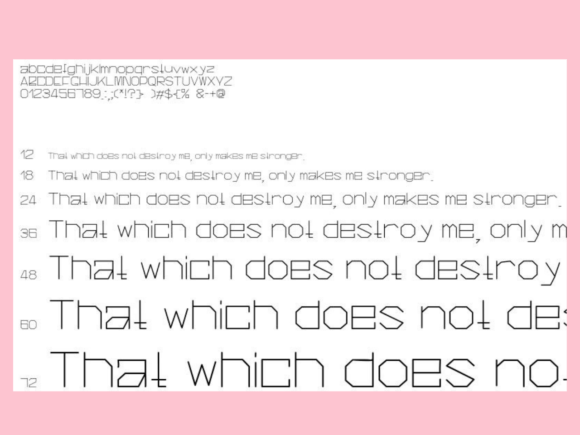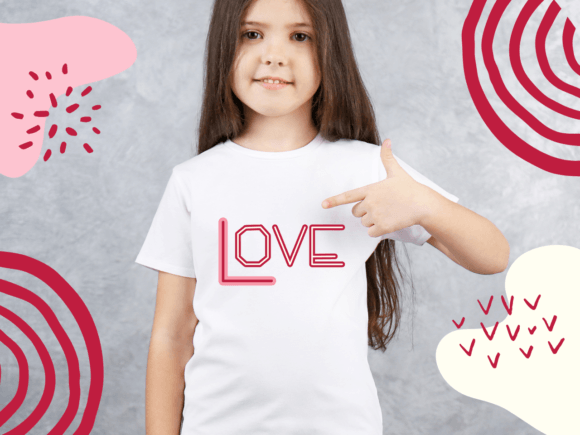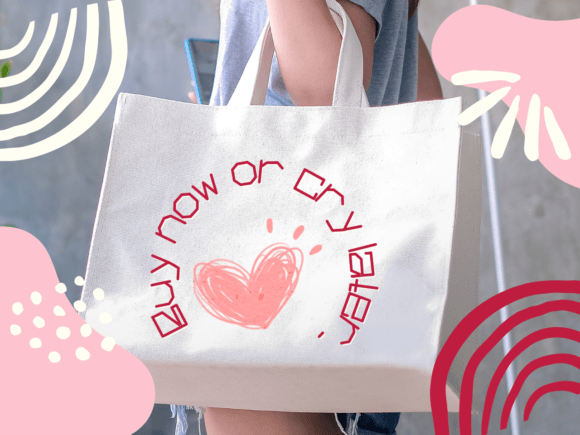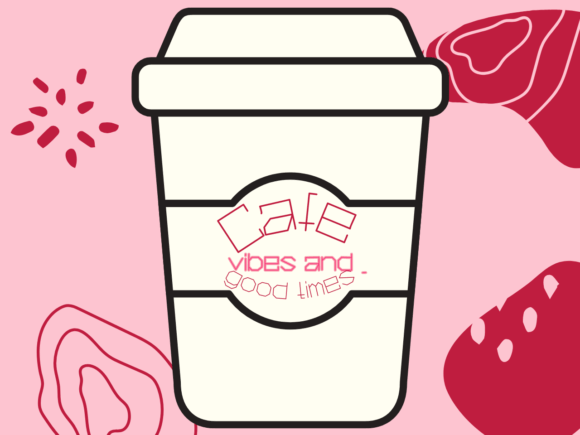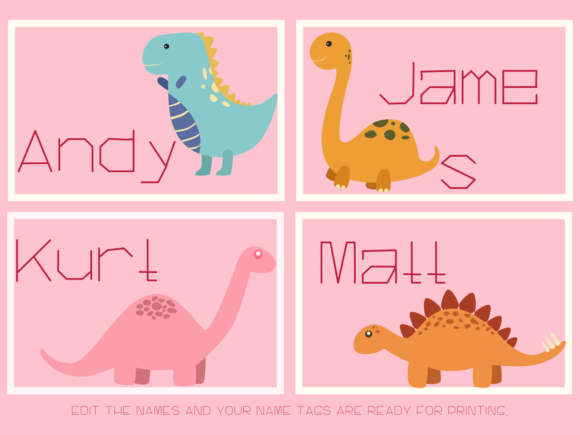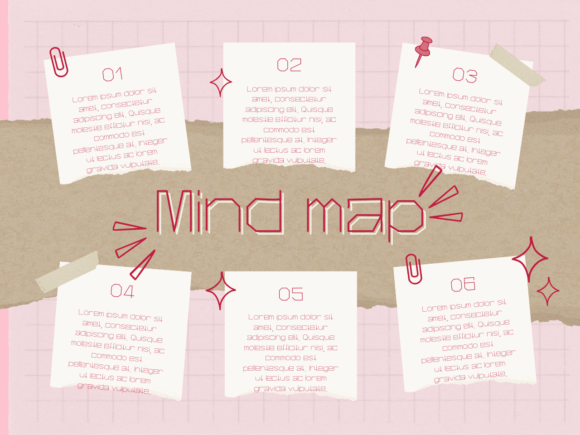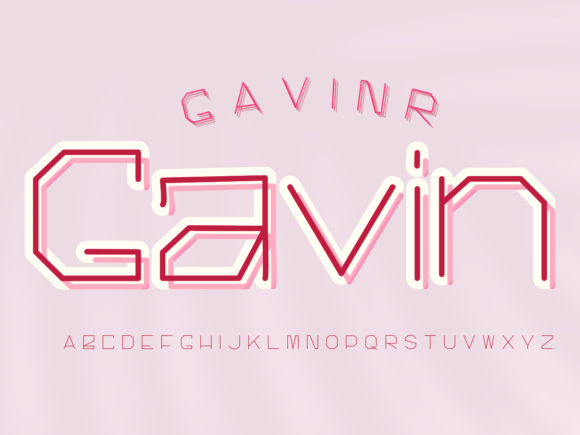
Gavin Font: Elevate Your Creativity with this Unique Display Font
Gavin is an incredibly unique display font that has been masterfully designed to become a true favorite among designers and crafters. With its distinctive style, this font has the potential to bring each of your creative ideas to the highest level, making it an essential addition to your typography collection.
What Makes Gavin Font Stand Out?
Gavin Font is not just another font; it’s a statement piece that can elevate your designs and take them to new heights. Its unique design elements and characteristics make it perfect for a variety of creative projects, from branding and advertising to packaging and digital media.
One of the key features that sets Gavin Font apart is its bold and eye-catching style. The font’s sleek lines and curves create a sense of sophistication and elegance, making it ideal for designs that require a touch of luxury and refinement.
Key Features and Benefits of Gavin Font
• Unique Design: Gavin Font boasts a distinctive design that is sure to grab attention and leave a lasting impression.
• Versatility: This font is incredibly versatile and can be used in a wide range of creative projects, from print and digital media to branding and advertising.
• Elegance and Sophistication: Gavin Font’s sleek lines and curves create a sense of elegance and sophistication, making it perfect for designs that require a touch of luxury and refinement.
• Easy to Read: Despite its bold style, Gavin Font is easy to read, making it perfect for use in body text and other applications where legibility is key.
How to Use Gavin Font in Your Designs
Gavin Font is an incredibly versatile font that can be used in a wide range of creative projects. Here are a few ideas to get you started:
• Branding and Advertising: Use Gavin Font to create eye-catching logos, advertisements, and marketing materials that are sure to grab attention.
• Packaging: Add a touch of luxury and sophistication to your product packaging with Gavin Font.
• Digital Media: Use Gavin Font to create stunning digital media, including social media graphics, website headers, and more.
• Print Media: Gavin Font is perfect for use in print media, including brochures, flyers, and posters.
Tips and Tricks for Getting the Most Out of Gavin Font
To get the most out of Gavin Font, here are a few tips and tricks to keep in mind:
• Experiment with Different Sizes: Gavin Font looks great in a variety of sizes, so don’t be afraid to experiment and find the perfect size for your design.
• Pair it with Other Fonts: Gavin Font pairs well with a variety of other fonts, so try pairing it with some of your other favorite fonts to create a unique and eye-catching design.
• Use it to Create Contrast: Gavin Font’s bold style makes it perfect for creating contrast in your designs. Try using it to draw attention to a particular element or to create a sense of hierarchy.
Gavin Font is an incredibly unique and versatile display font that has the potential to bring each of your creative ideas to the highest level. With its bold and eye-catching style, elegance and sophistication, and ease of use, this font is perfect for designers and crafters looking to elevate their designs and take them to new heights.